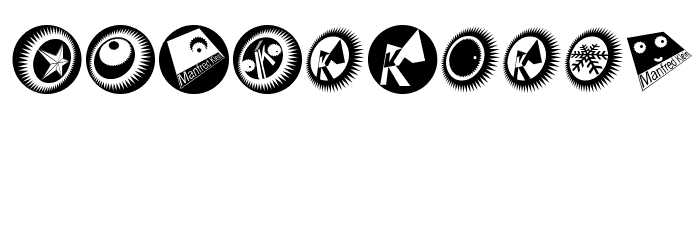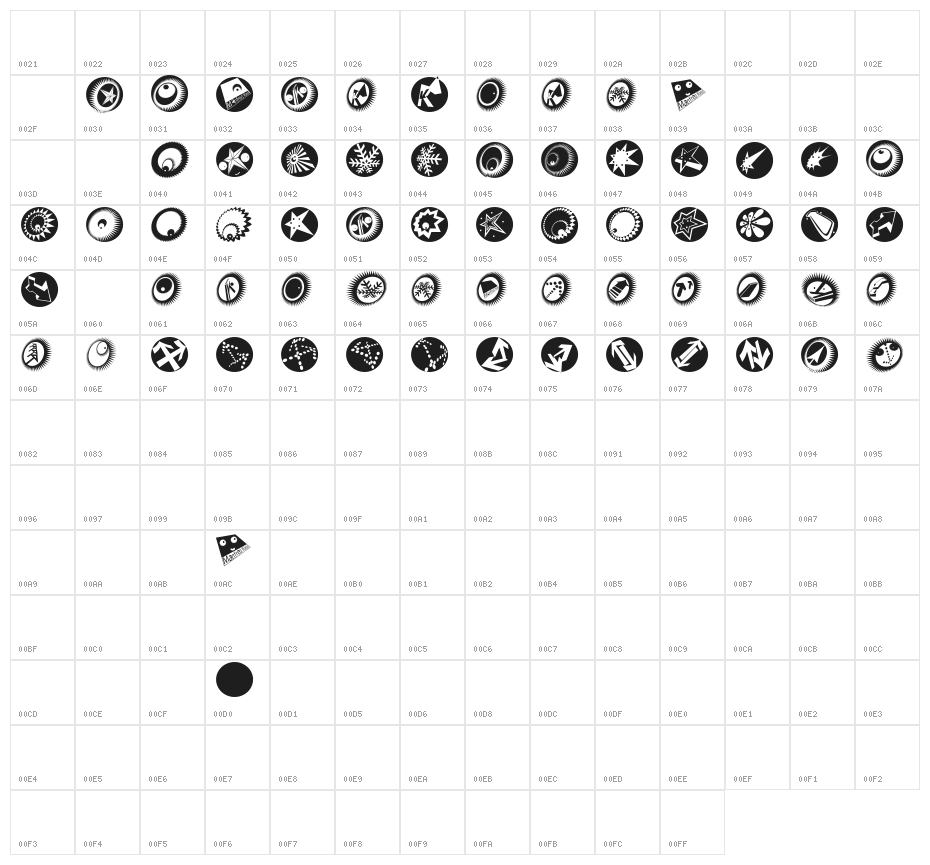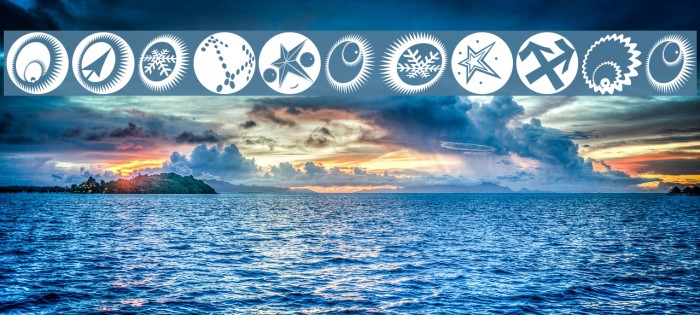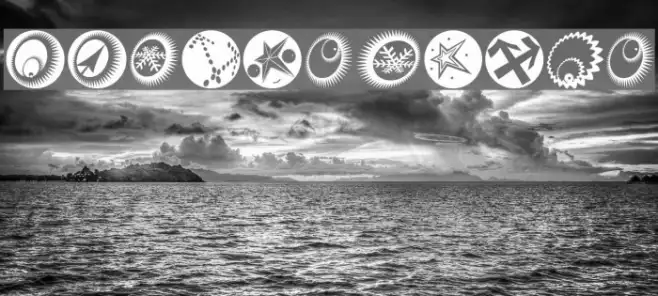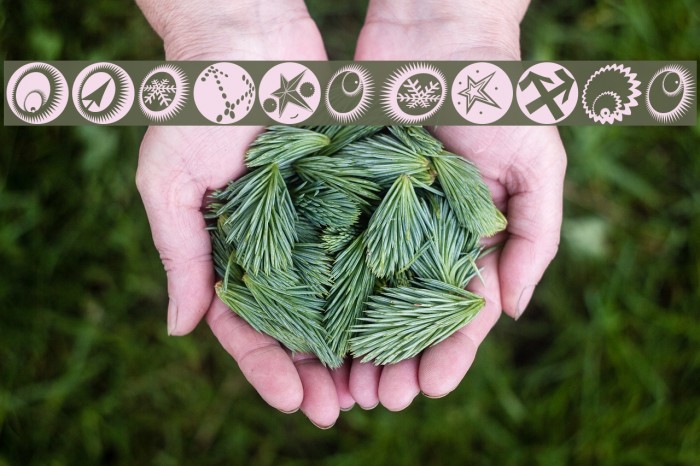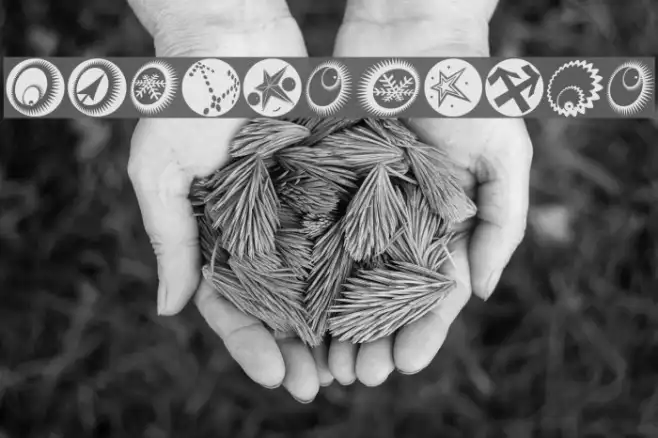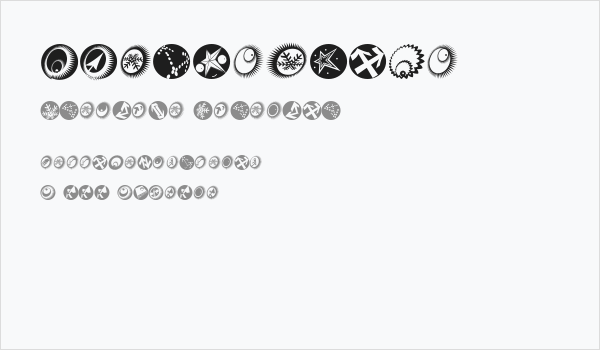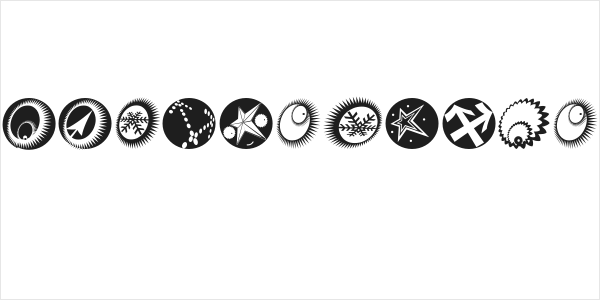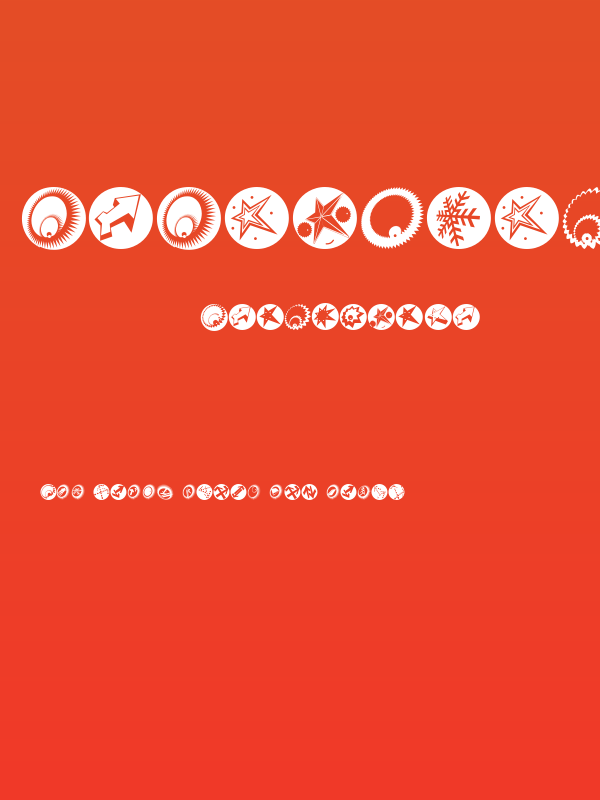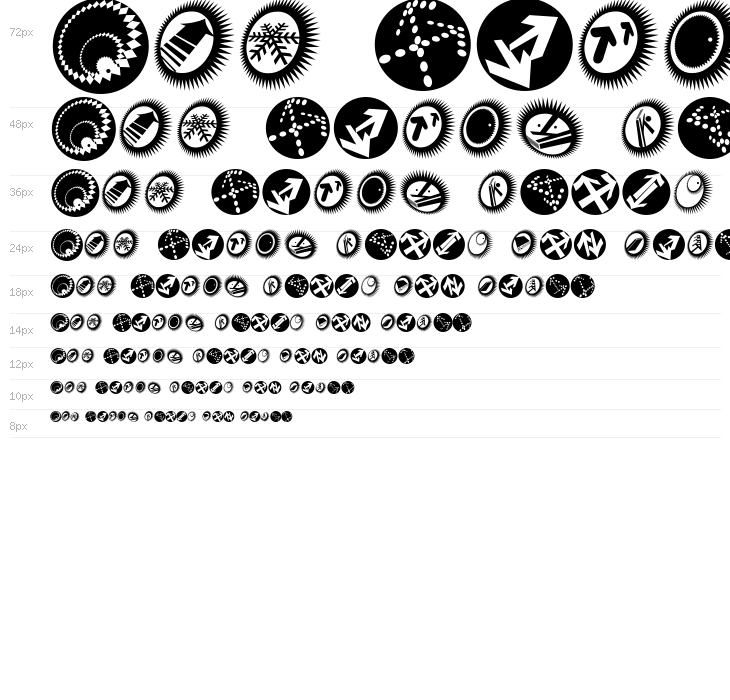
EyesAndSoOn Font
EyesAndSoOn Description
A highly decorative and illustrative dingbat font featuring circular icons with abstract, eye-like, starburst, and geometric designs. Each glyph is enclosed in a black circle with spiked or radiating edges, containing unique symbols or patterns inside.
| Overall Style | Decorative, Abstract, Modern |
| Use Case | Icons, Decorative elements, Visual accents |
| Proposed Projects | Posters, album covers, branding, digital stickers, creative dividers, visual accents in editorial design. |